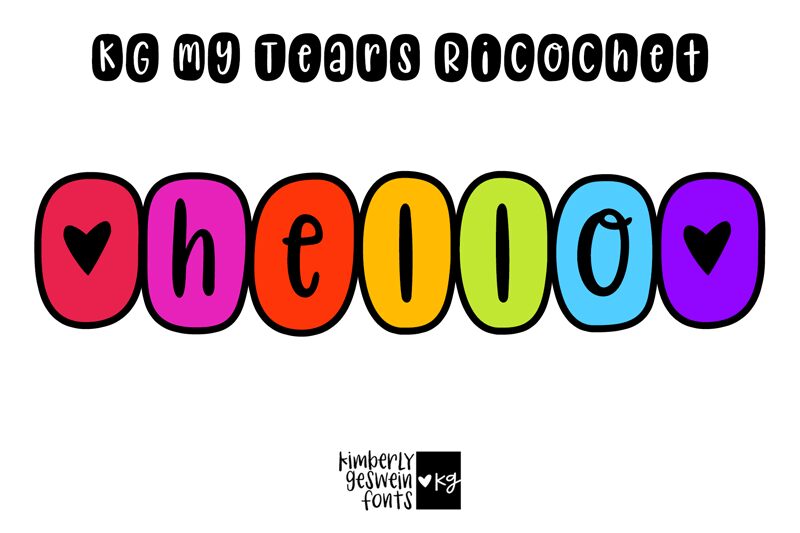
KG My Tears Ricochet
KG My Tears Ricochet, designed by Kimberly Geswein, is a captivating display font that exudes a moody, introspective aesthetic. Condensed and decorative, this font's negative style creates a striking visual impact, conveying a sense of melancholy and contemplation. The sharp, geometric letterforms and unique character shapes lend the design an impactful, almost haunting presence, making it a compelling choice for projects seeking to evoke a pensive, emotive atmosphere.
KG My Tears Ricochet's versatility allows it to shine across a range of design applications, from editorial layouts and book covers to poster designs and branding. Its condensed width and bold personality make it an excellent option for attention-grabbing headlines, while its decorative flair lends itself well to titling and logotypes. Ultimately, this font's ability to captivate and evoke a specific emotional response makes it a valuable asset for designers seeking to craft narratives and elicit powerful reactions.
Kimberly Geswein